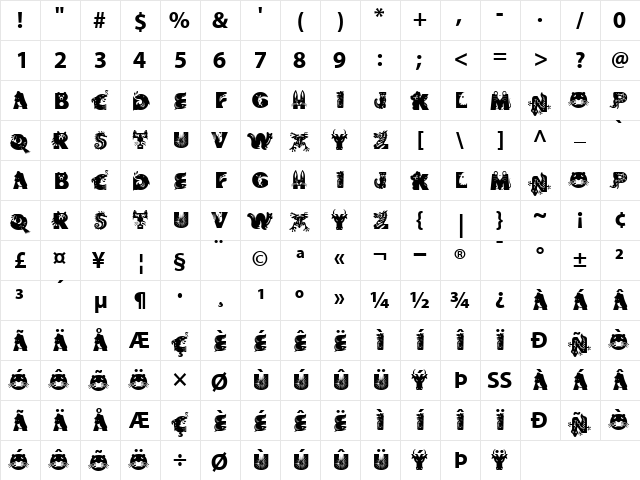
Fox Pond Regular
Design Context for Fox Pond Typeface
Fox Pond is a composed and adaptable typeface that performs quietly and consistently across a wide range of design contexts.